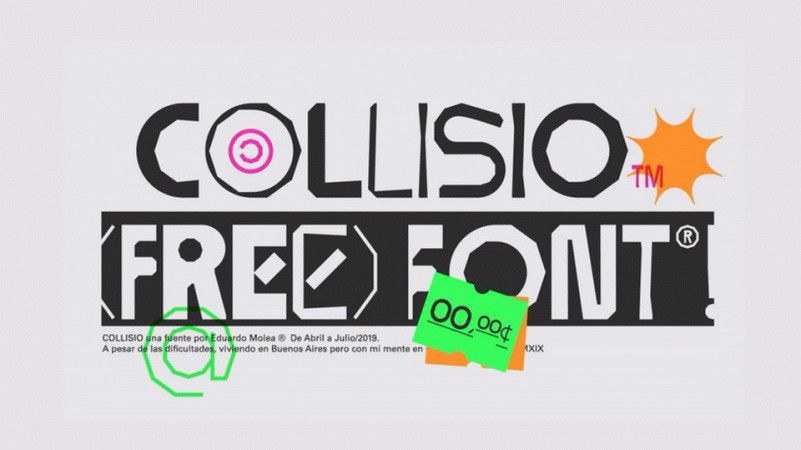
Collisio Free Font
Collisio is a display nature font with a unique shapes and simple structure: a single height and in capital letters. The font based on the contrasts generated by the type to be structured with geometric shapes regardless of the consistency of its stroke.
The idea is to play with the results when writing and see how these pose different possibilities of use, so, for these different visual collisions that generates it’s called COLLISIO which in Latin means the collision.